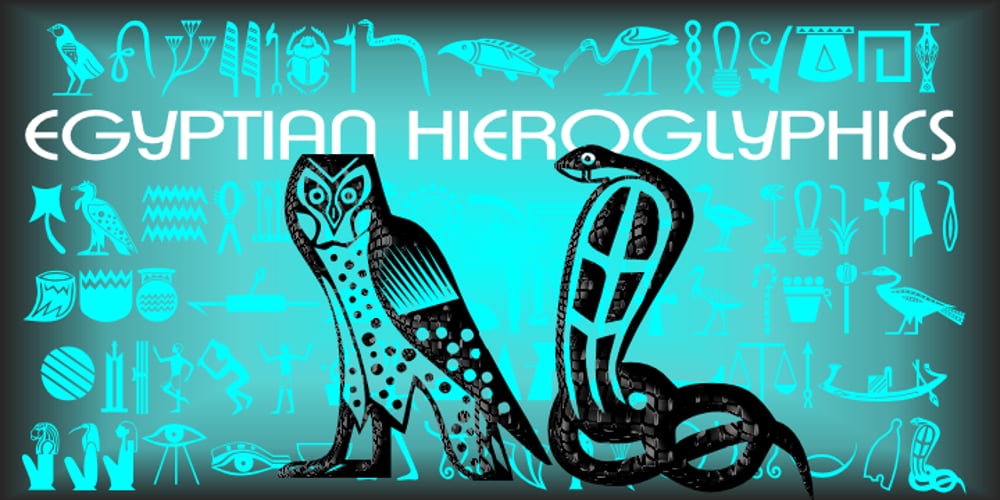
Egyptian Hieroglyphics Basic Font Family was designed by Denise Koehler and published by Deniart Systems. Egyptian Hieroglyphics Basic contains 8 styles and family package options. The Egyptian Hieroglyphics contains over 270 Phonetic and Ideographic symbols, including the primary alphabet commonly used by jewelers and craftspeople to create your name in Hieroglyphs. The study of Hieroglyphics has been an ongoing fascination by Egyptologists for literally centuries. The discovery of the Rosetta stone in 1799 provided an incredible breakthrough in understanding these Phonetic and Ideographic (pictorial) symbols. Interpretation provided in the accompanying manuals represents an assembly of the most popular transcriptions of Sir Alan Gardiner and E.A. Wallis Budge. NOTE: this bundle comes with a comprehensive interpretation guide in pdf format.